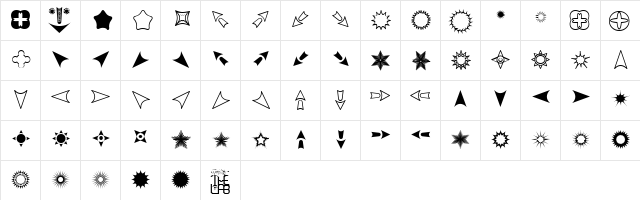
Eyecicles Regular
| Designer | Graham Meade & Apostrophe |
Design Context for Eyecicles Typeface
Eyecicles is a composed and adaptable typeface that performs quietly and consistently across a wide range of design contexts.